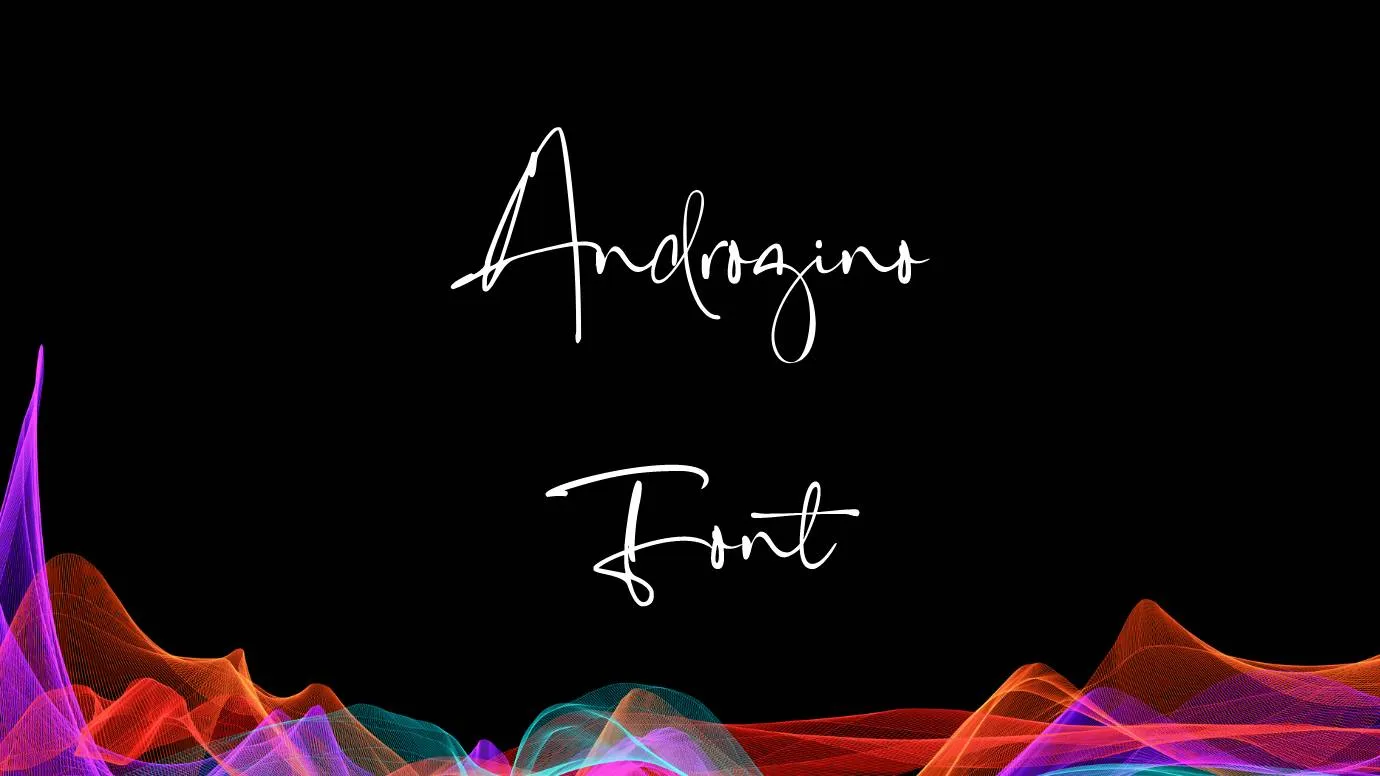
Androgino Font Family is a modern script handwritten look typeface that comes with a fantastic and modern look. The two famous Indonesian designers are known by the name Muhammad Ridha Agusni and Siti Saribanon Nurjannah work on the creation of this typeface.
This handwritten script texture has many unique features and is attainable in the paid version. You can make a pairing of this script font with ohio script font that comes in the script family.
Androgino Font